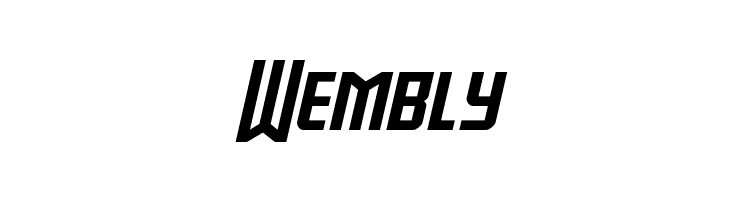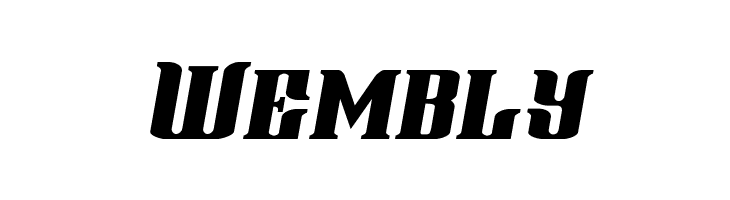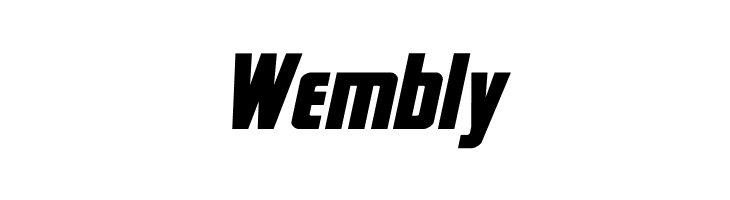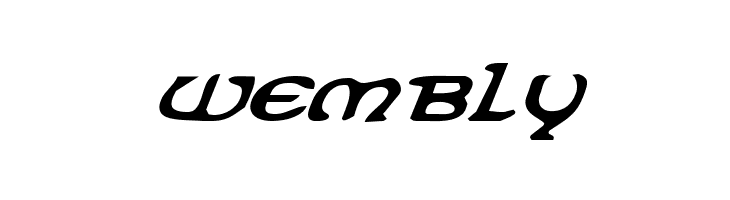
A bold, italic font with dynamic curves and expanded width, ideal for display use.
A bold, angular, and slightly italicized font with a modern and dynamic style.
A bold, italic font with high contrast and a dynamic, energetic style.
A bold, expanded, and italicized font with a dynamic and modern style.